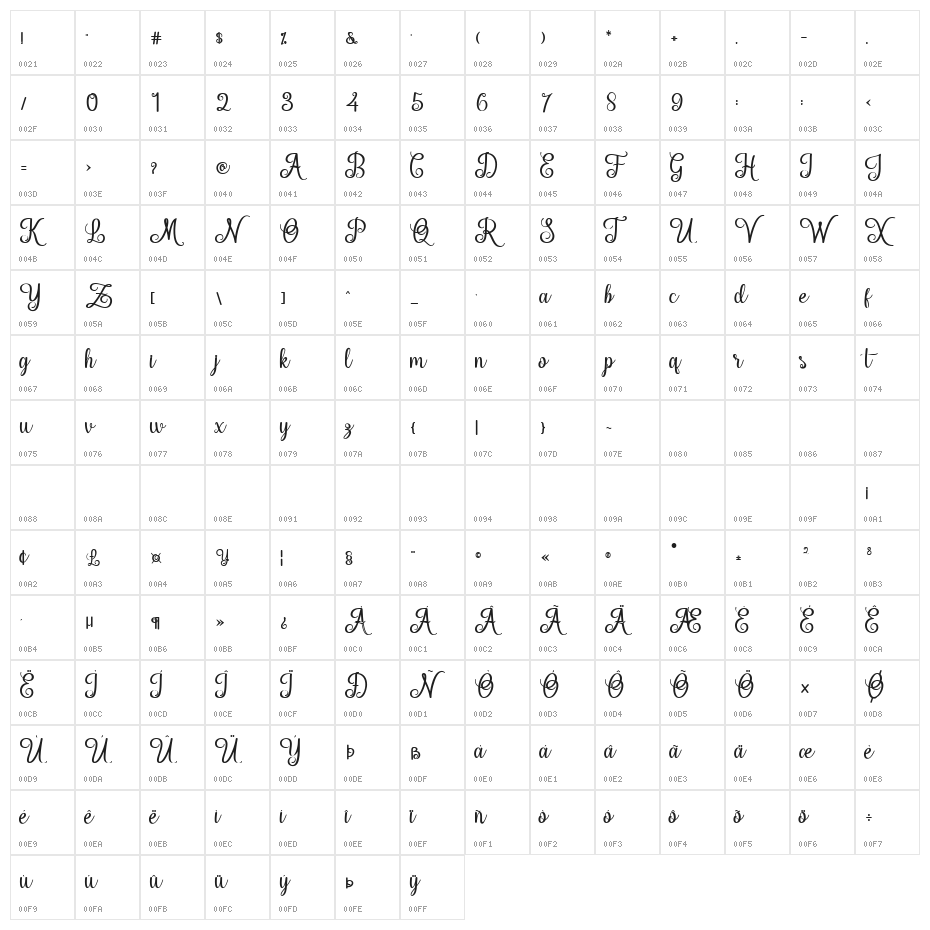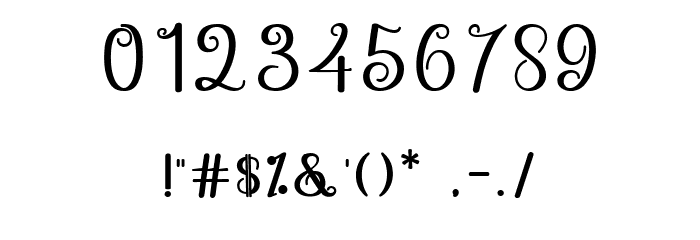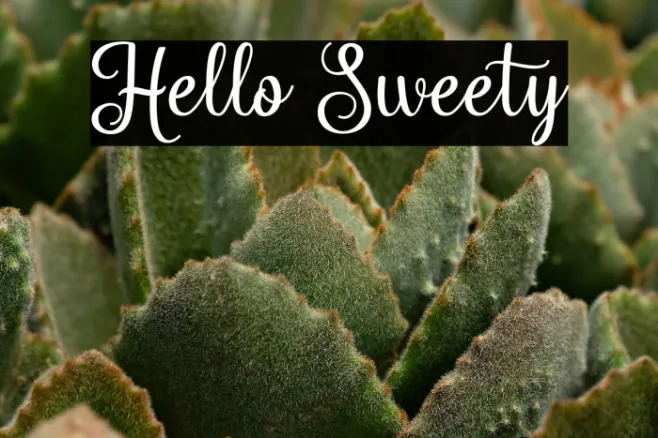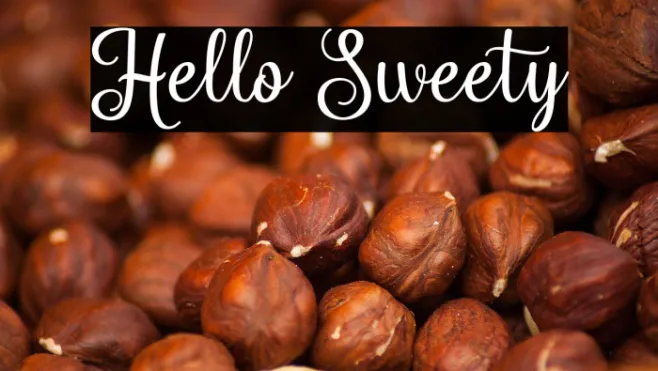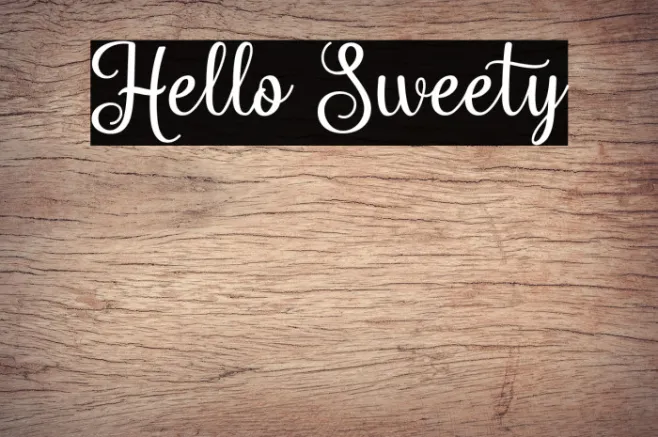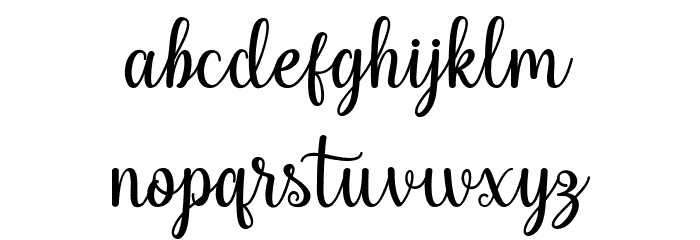
Hello Sweety Font
Hello Sweety Description
This font exudes a playful and elegant charm, characterized by its flowing script style with decorative swirls and loops. The uppercase letters feature intricate curls, giving them a whimsical and ornate appearance, while the lowercase letters maintain a more straightforward yet still cursive form. The numerals and special characters are consistent with this decorative theme, adding a touch of sophistication and flair. The overall design is cohesive and visually appealing, making it suitable for projects that require a touch of elegance and creativity.
| Proposed Projects | Ideal for wedding invitations, greeting cards, branding, and decorative signage. |